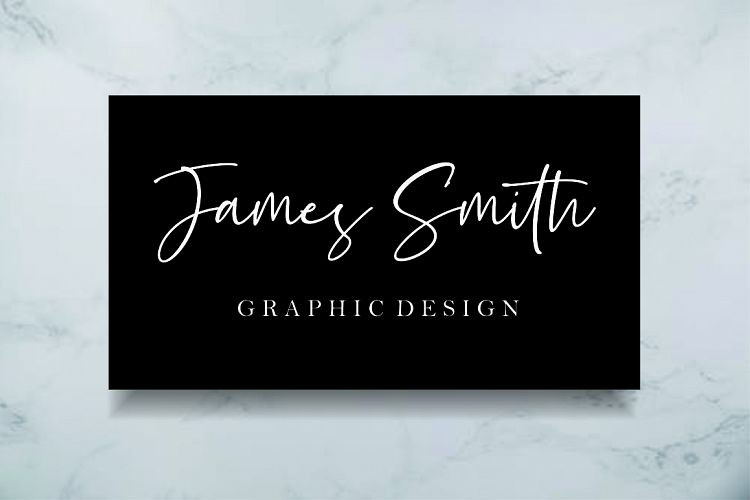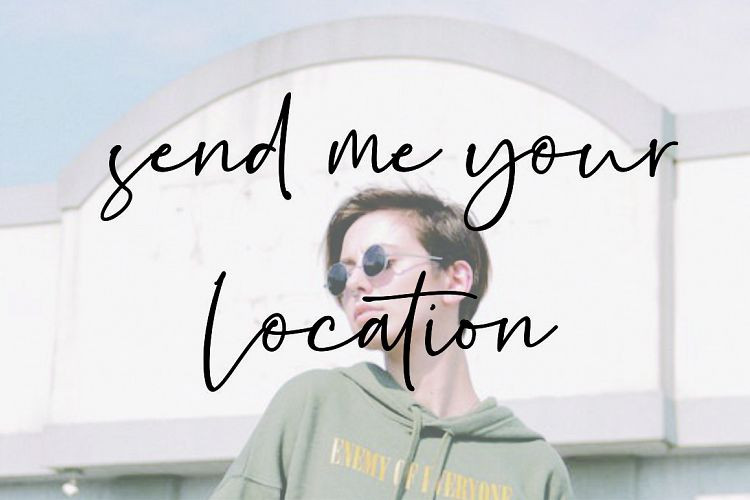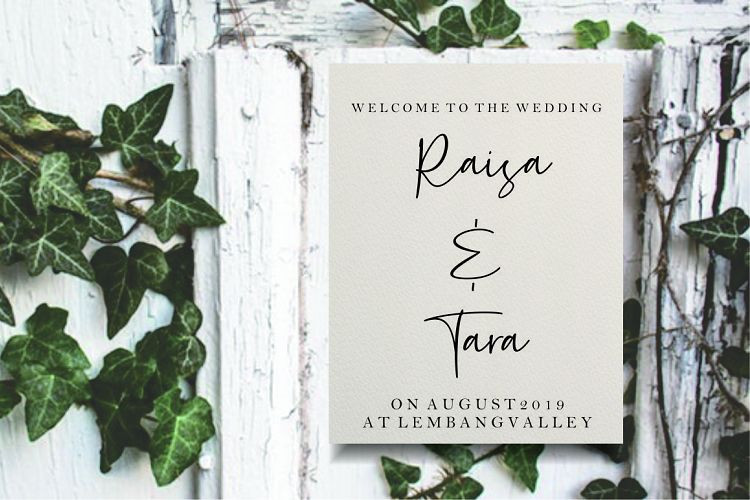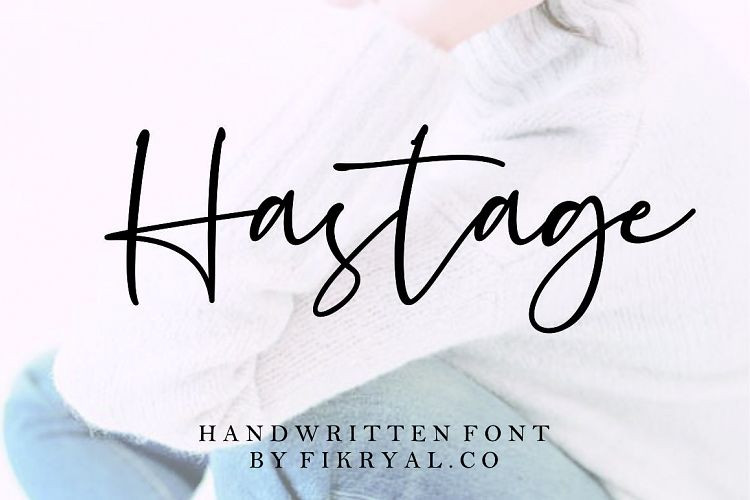
Hastage Handwritten Font
Hastage Handwritten Font – Free Demo
Say hello to Hastage Font. A handwritten signature script with a natural & stylish flow. This collection of scripts is perfect for personal branding. It is designed and shared by fikryal. Hastage Handwritten Font is a new modern & stylish handwritten font. I’ts Perfect for logo,branding, invitation, tittle, wedding designs, social media posts, advertisements, product packaging, product designs, label, photography, watermark, special event,magazine,web design,etc.